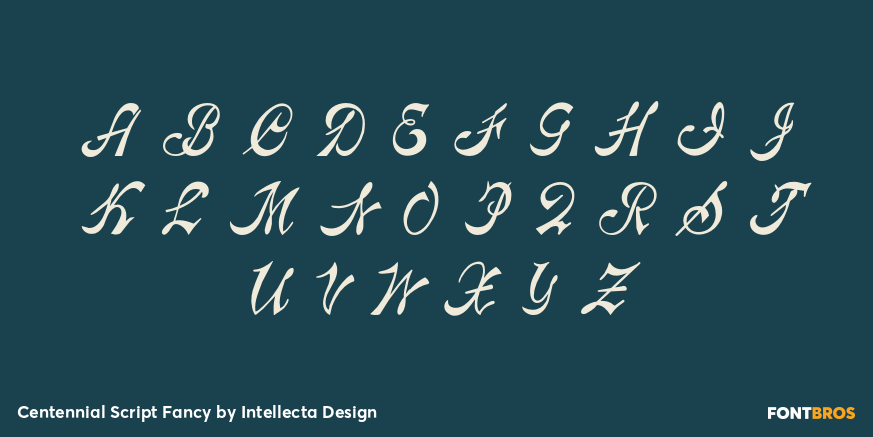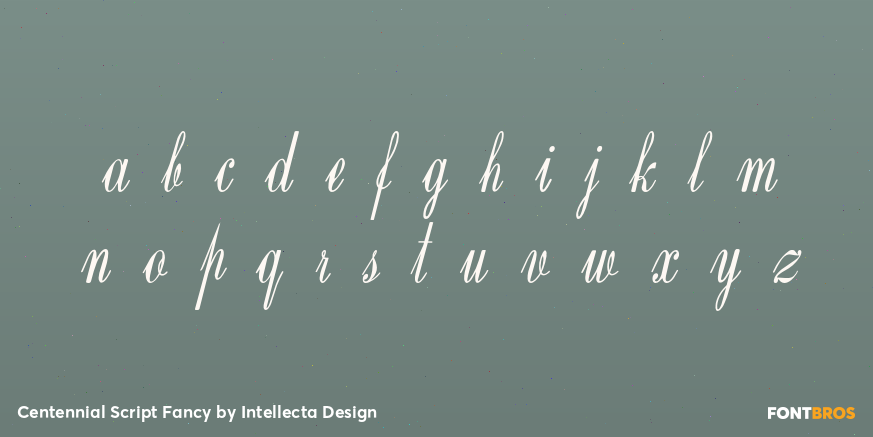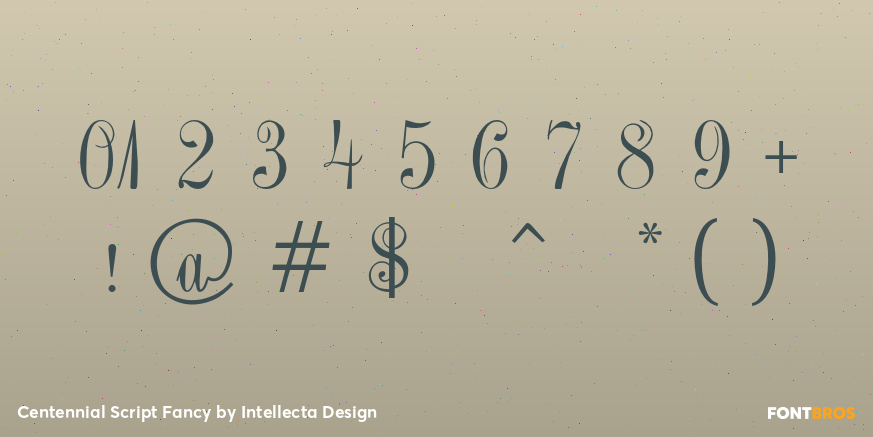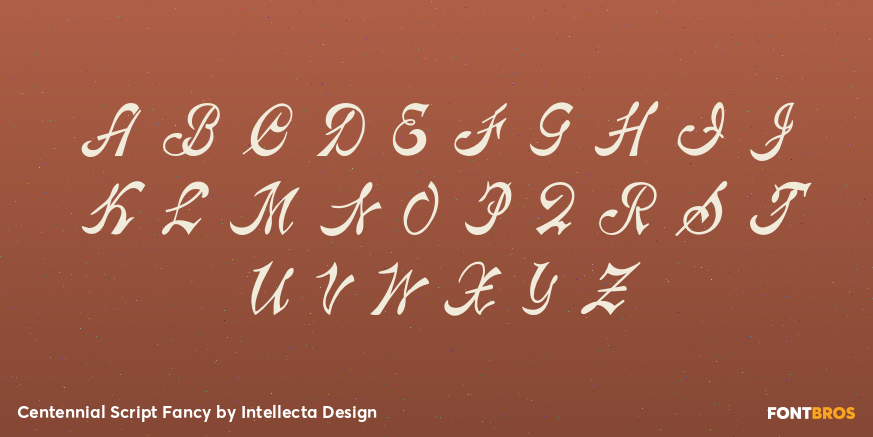
Centennial Script Fancy
Font Family by Intellecta Design
Centennial Script Easy is the Intellecta digitization of the classic font from Hermann Ihlenburg in 1876 developed originally for the MacKellar, Smiths & Jordan typefoundry. We decided to digitize only the uppercases to this work, and to create a different version to this anciente design, we joined the uppercase to the lowercase set of another classic font, Pentagraph. This is a fraction of the global project, which is complete with the Centennial Script Fancy